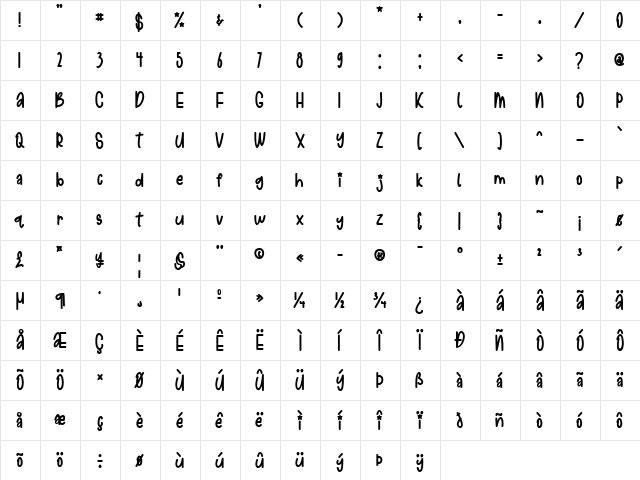
Starmoon Regular
| Designer | Arief Tri Sulistiyono |
Design Context for Starmoon Typeface
Starmoon is a composed and adaptable typeface that performs quietly and consistently across a wide range of design contexts.